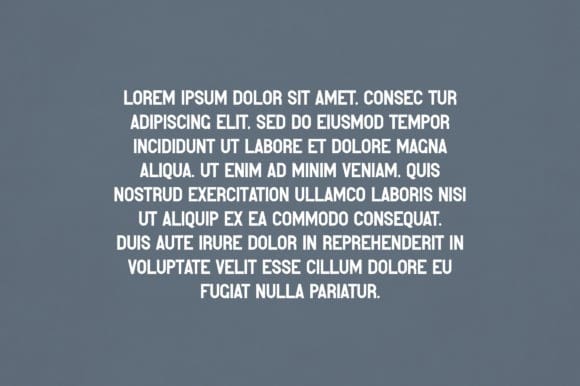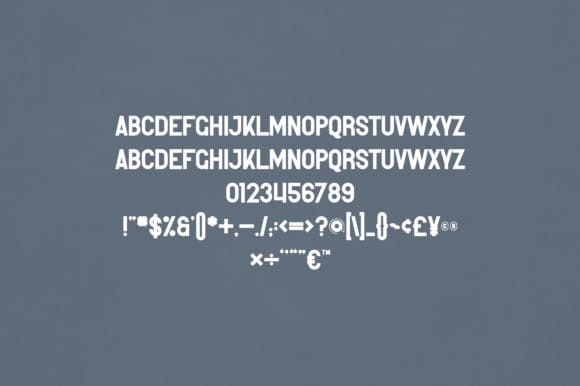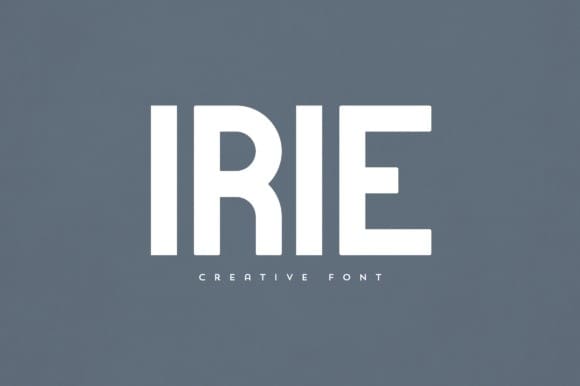
Irie Font
Irie Font is an elegant and versatile display font that will make your typography truly unique! It will enchant every logo, branding, headline, or plain text!